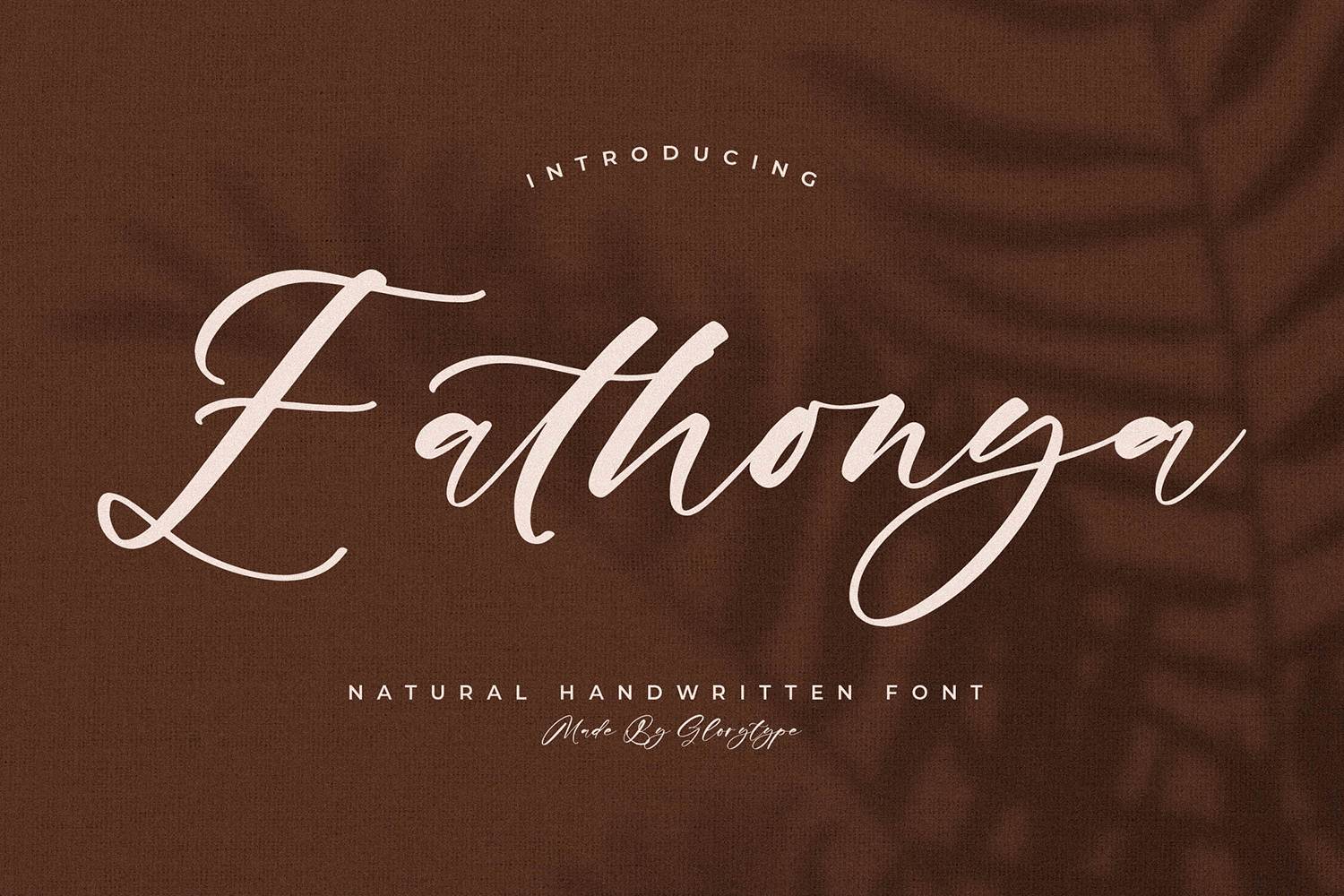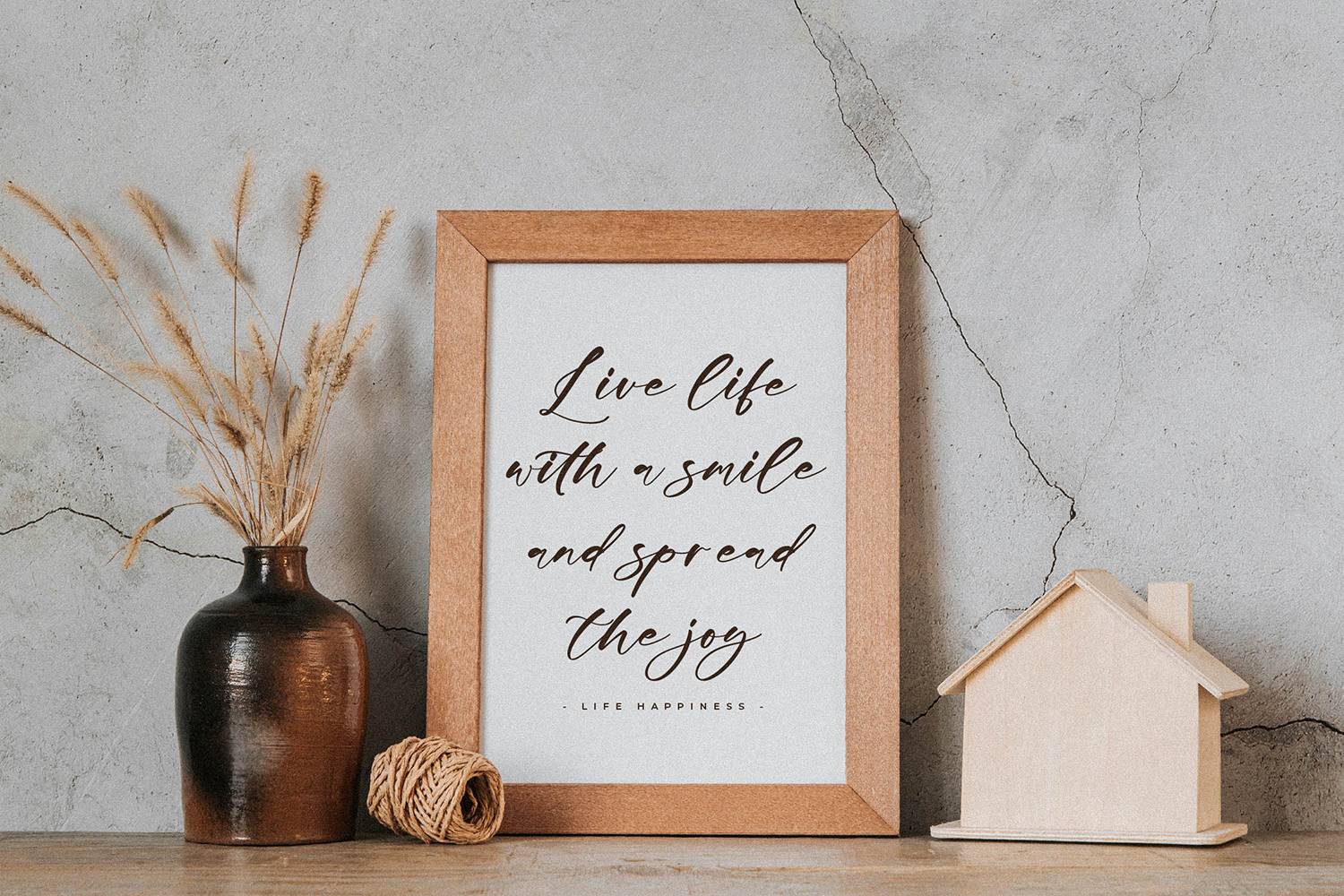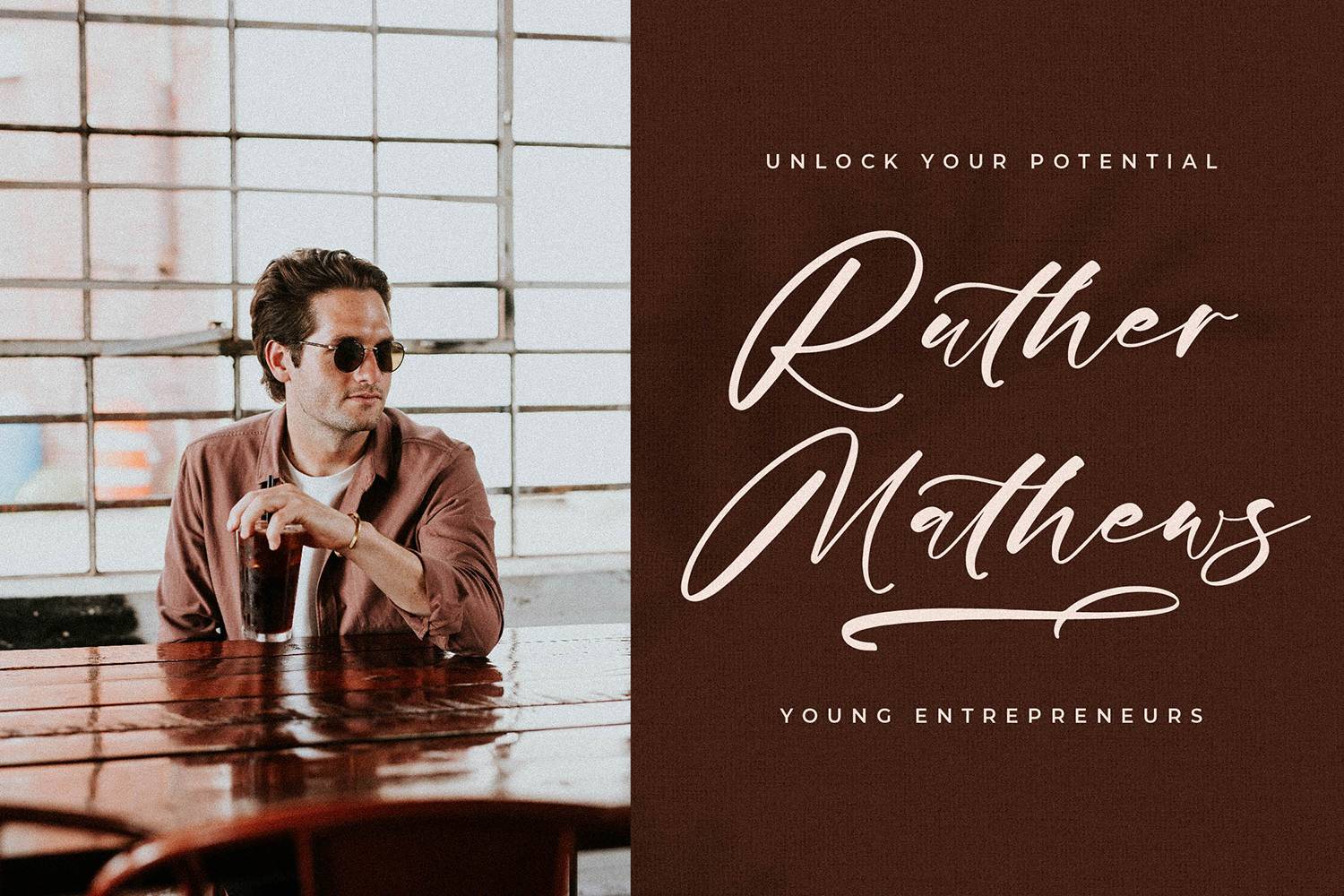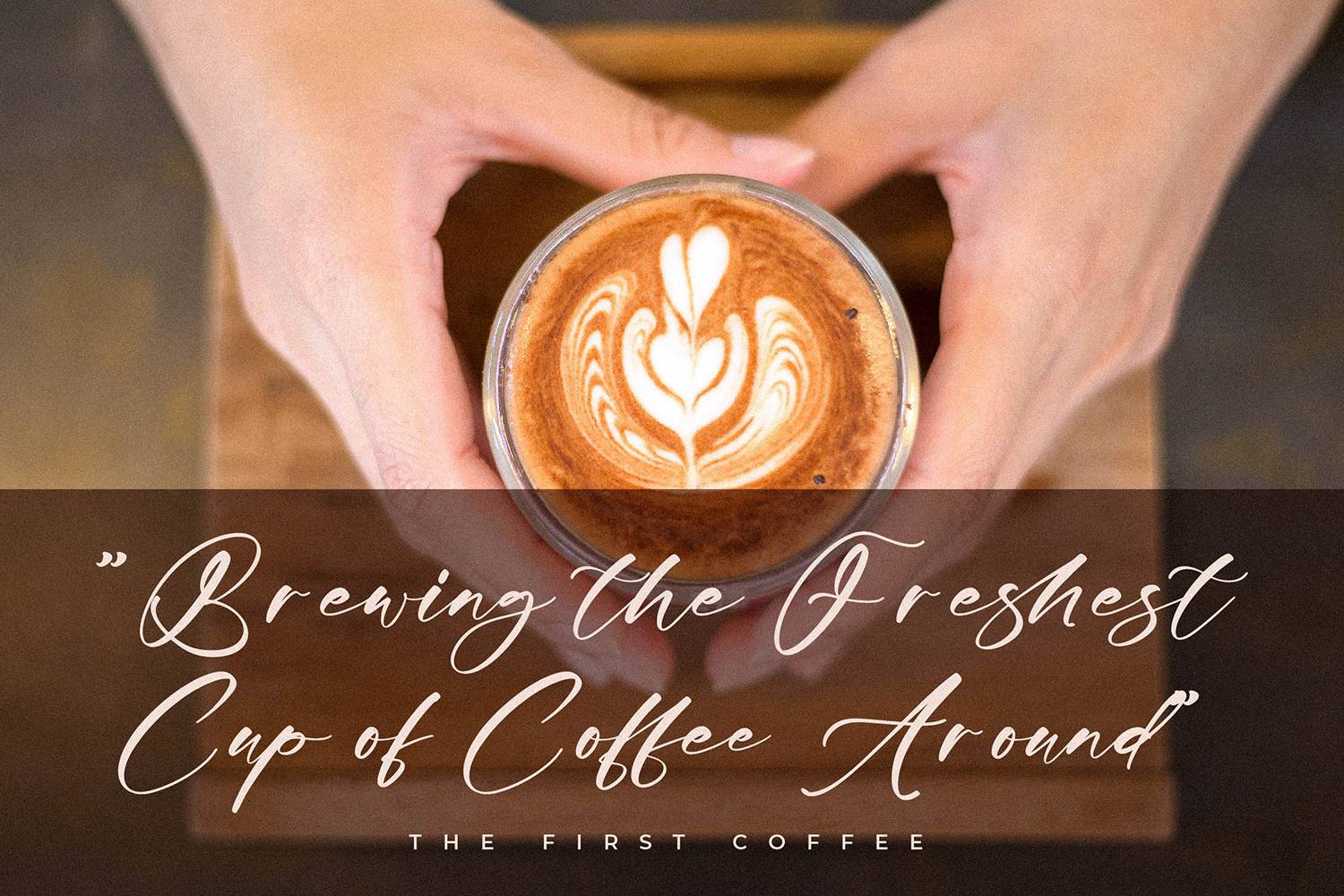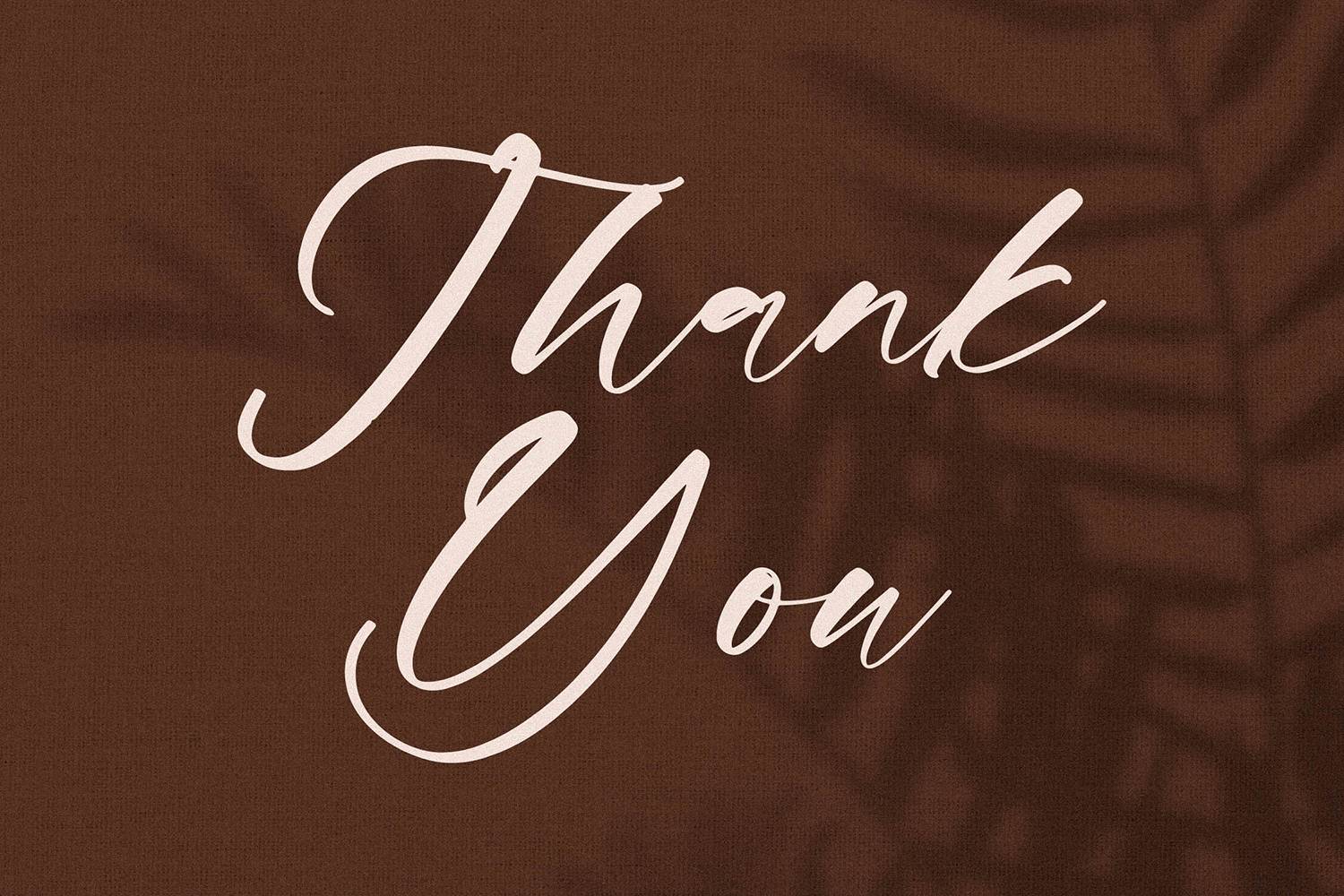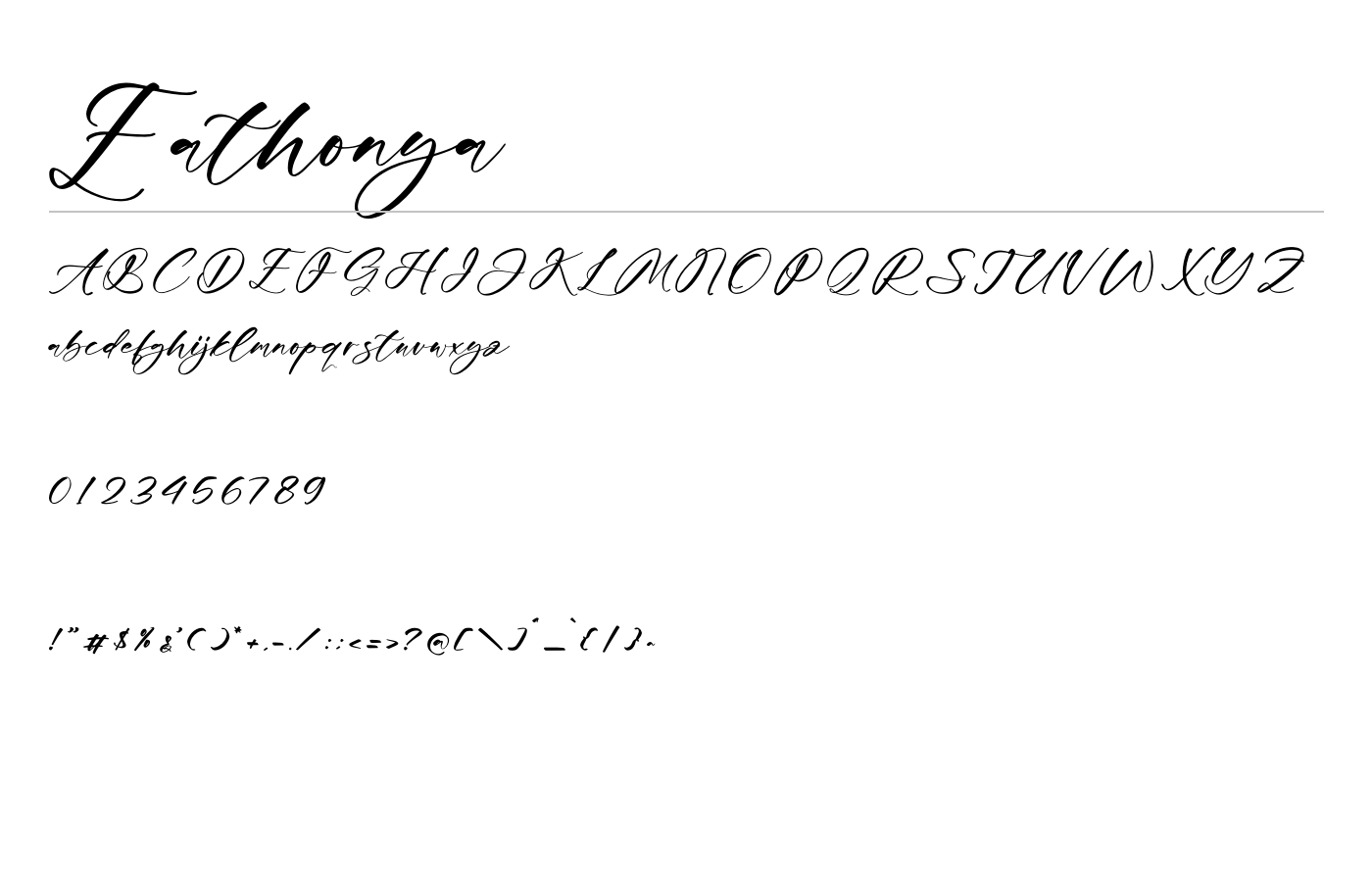
Eathonya is an elegant script font characterized by its graceful, flowing strokes and delicate contrast between thick and thin lines. With a refined calligraphic style and stylishly connected letterforms, it exudes a sophisticated, romantic feel perfect for invitations, branding, and elegant editorial design. This font works beautifully where a touch of class and handwritten charm is desired, making it ideal for luxury packaging, wedding materials, and high-end lifestyle content.
Eathonya Font
About Eathonya Font